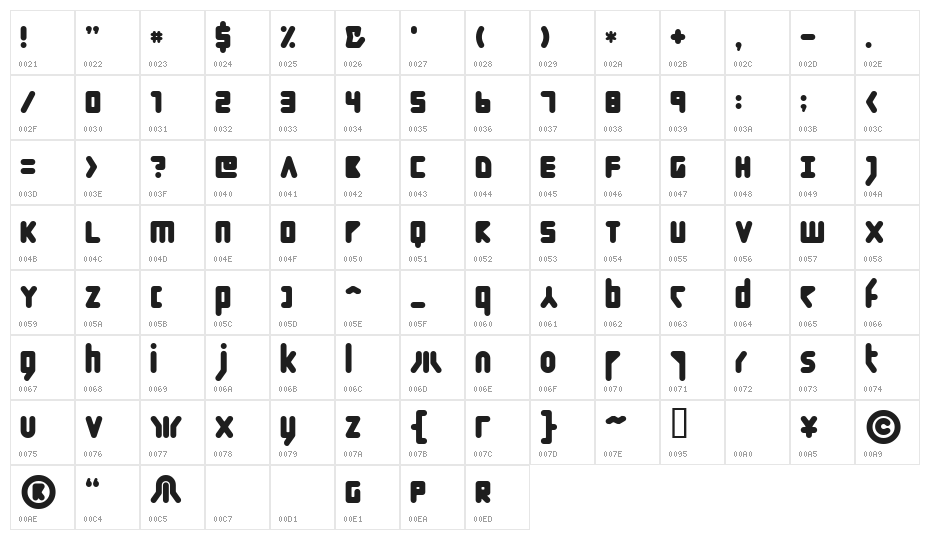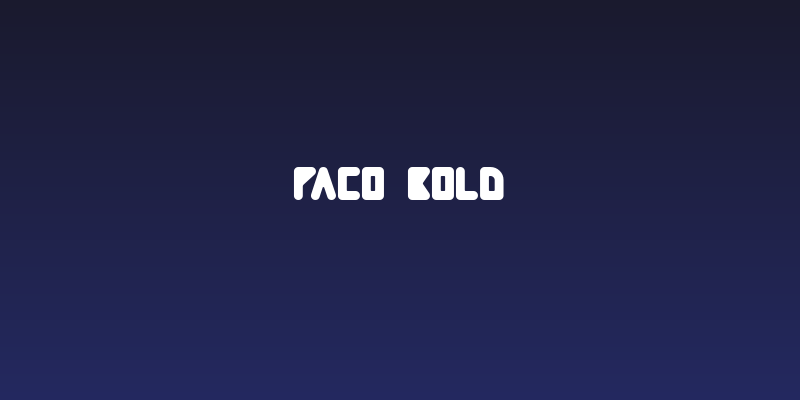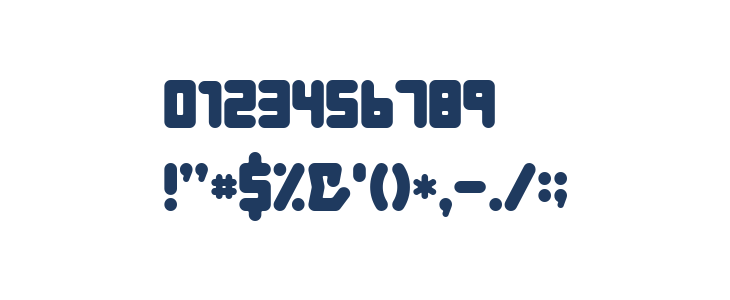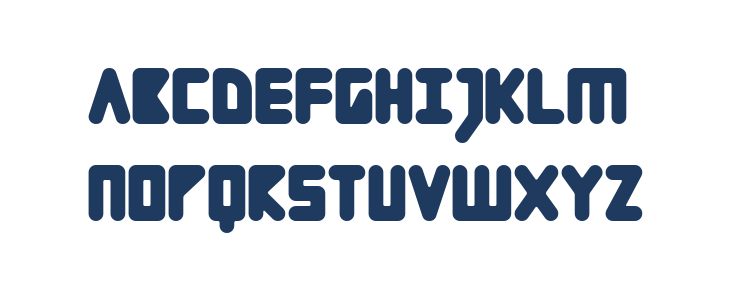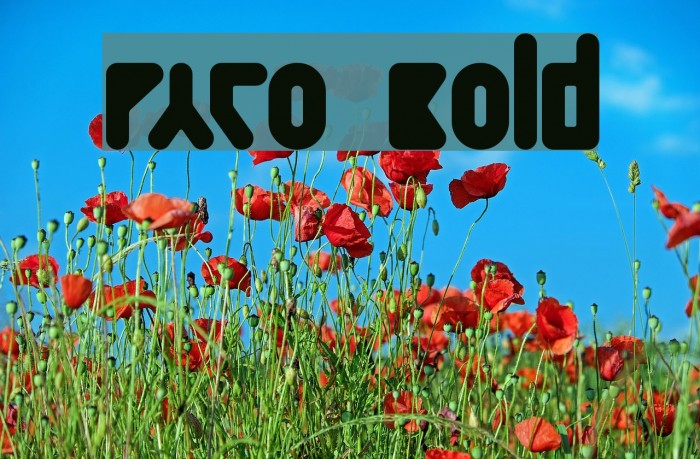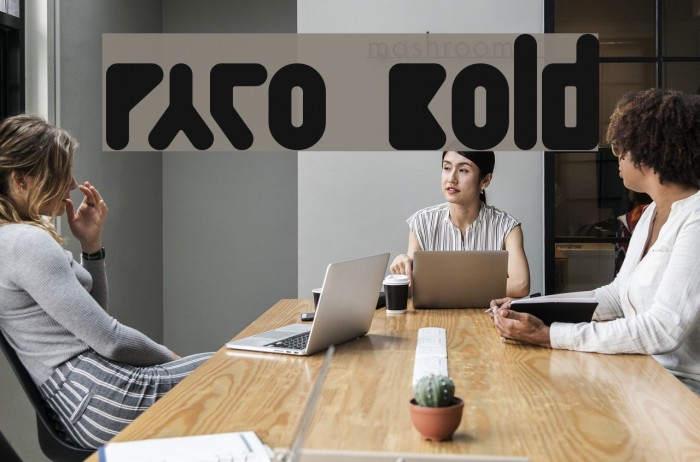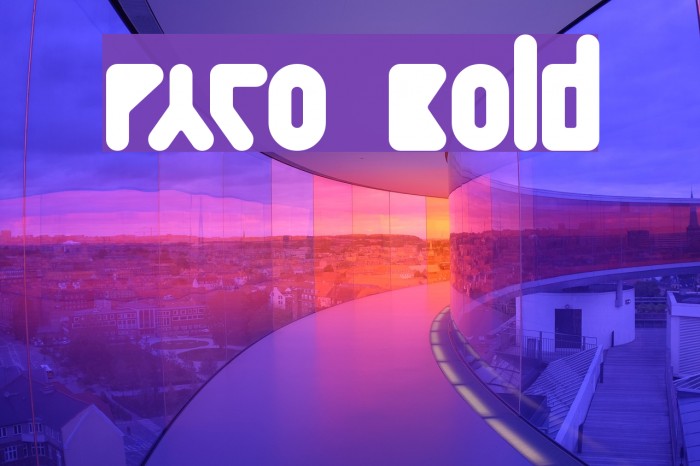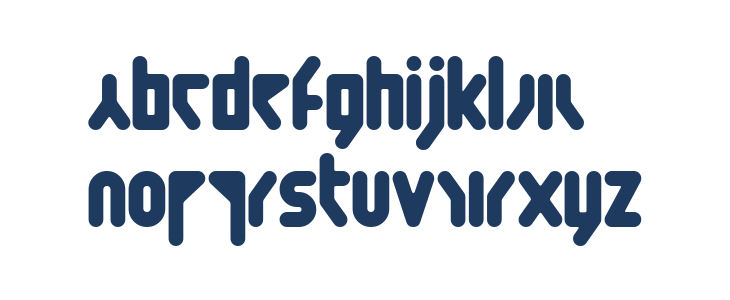
Paco Bold Font
Paco Bold Description
This font features a bold, geometric design with rounded edges, creating a modern and playful appearance. The characters are uniformly thick, contributing to a strong visual impact. The uppercase and lowercase letters maintain a consistent style, with a unique approach to letterforms that emphasizes simplicity and readability. The numbers and special characters follow the same design principles, ensuring cohesion across all elements. This font is ideal for projects that require a contemporary and eye-catching typeface.
| Proposed Projects | Suitable for branding, posters, headlines, and any design requiring a bold statement. |